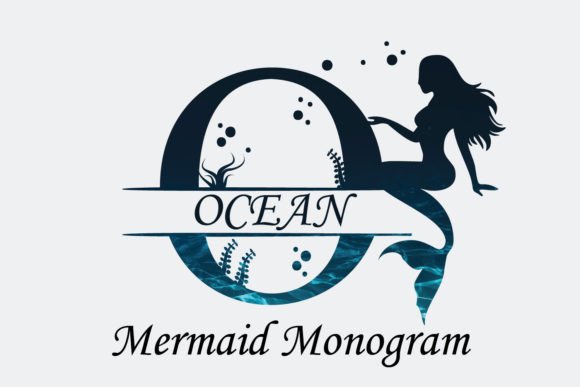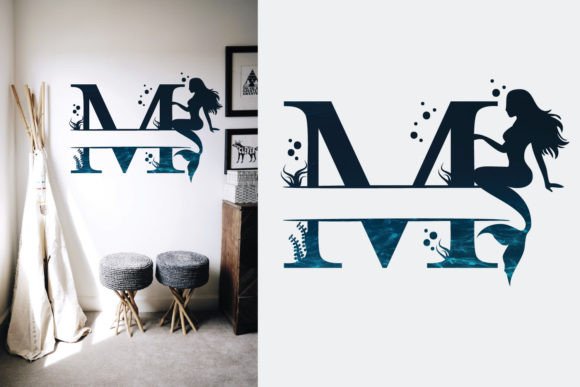
Ocean Mermaid Monogram is an elegant decorative font, featuring lovely ornaments. Fall in love with its authentic feel and use it to create gorgeous stationary art, eye-catching social media posts, and cute greeting cards.
Ocean Mermaid Monogram Font